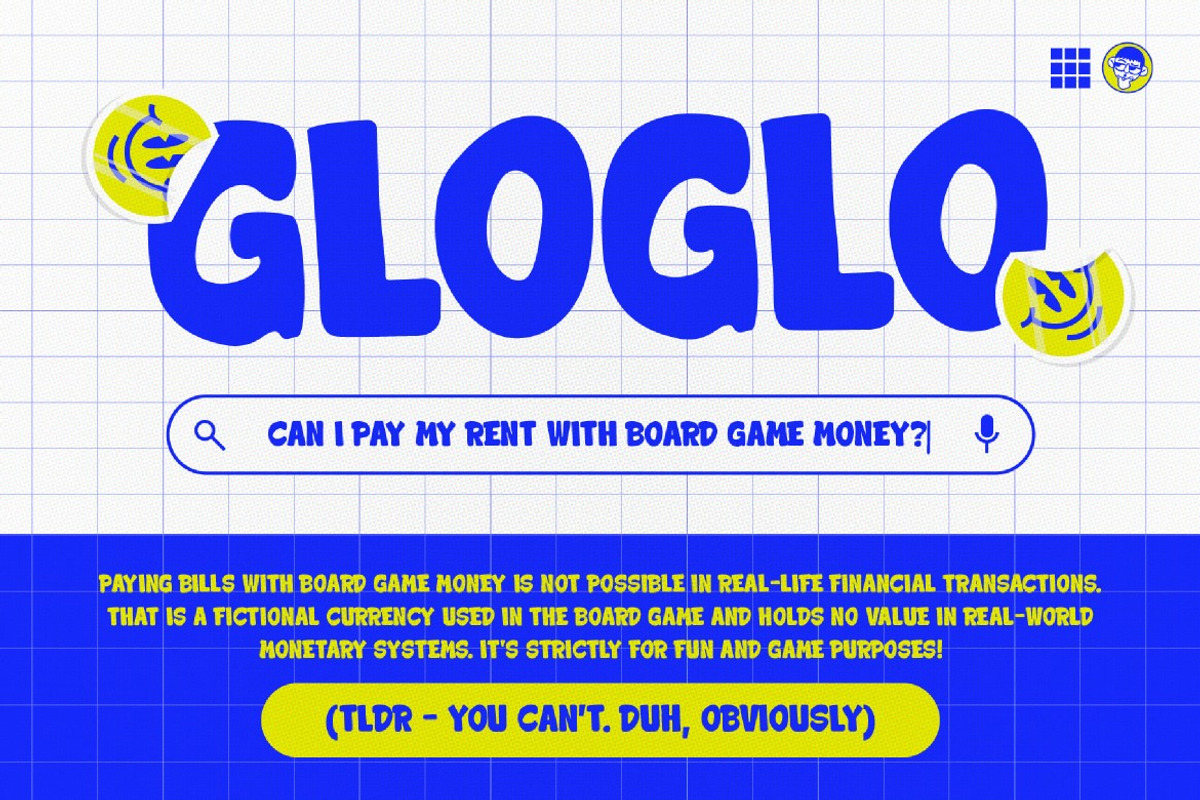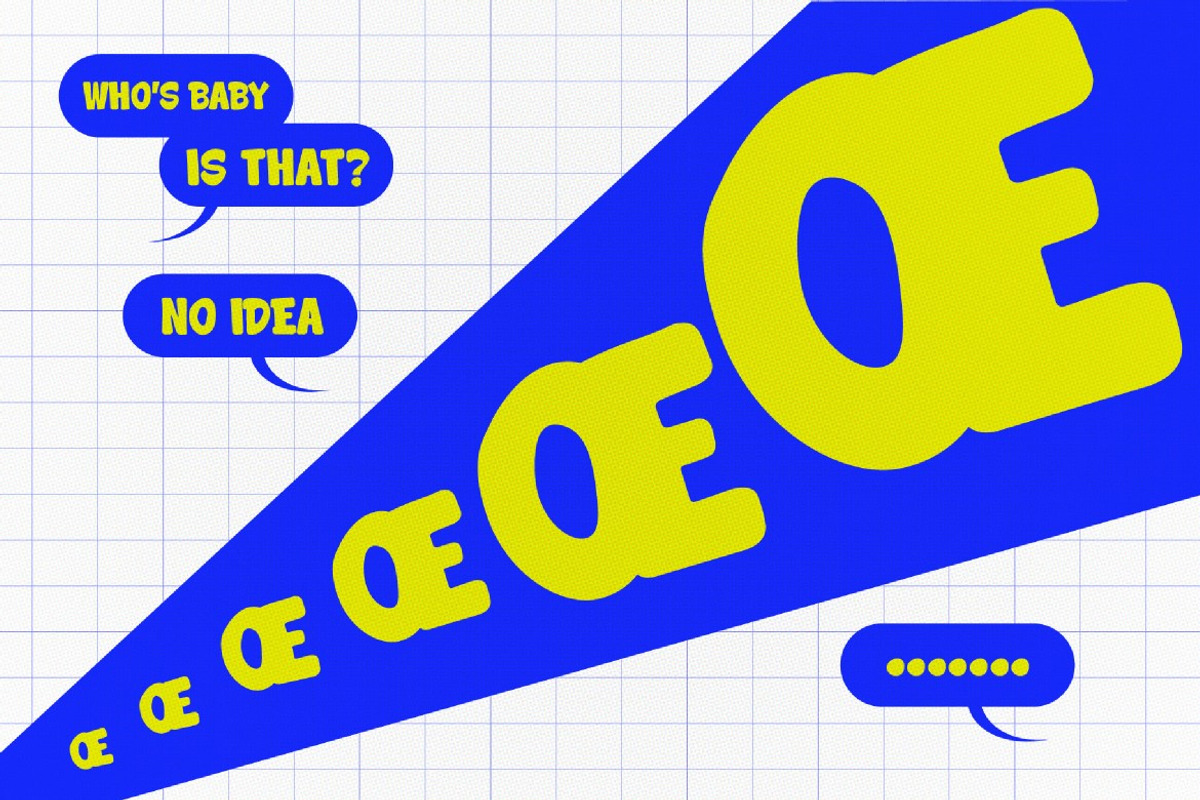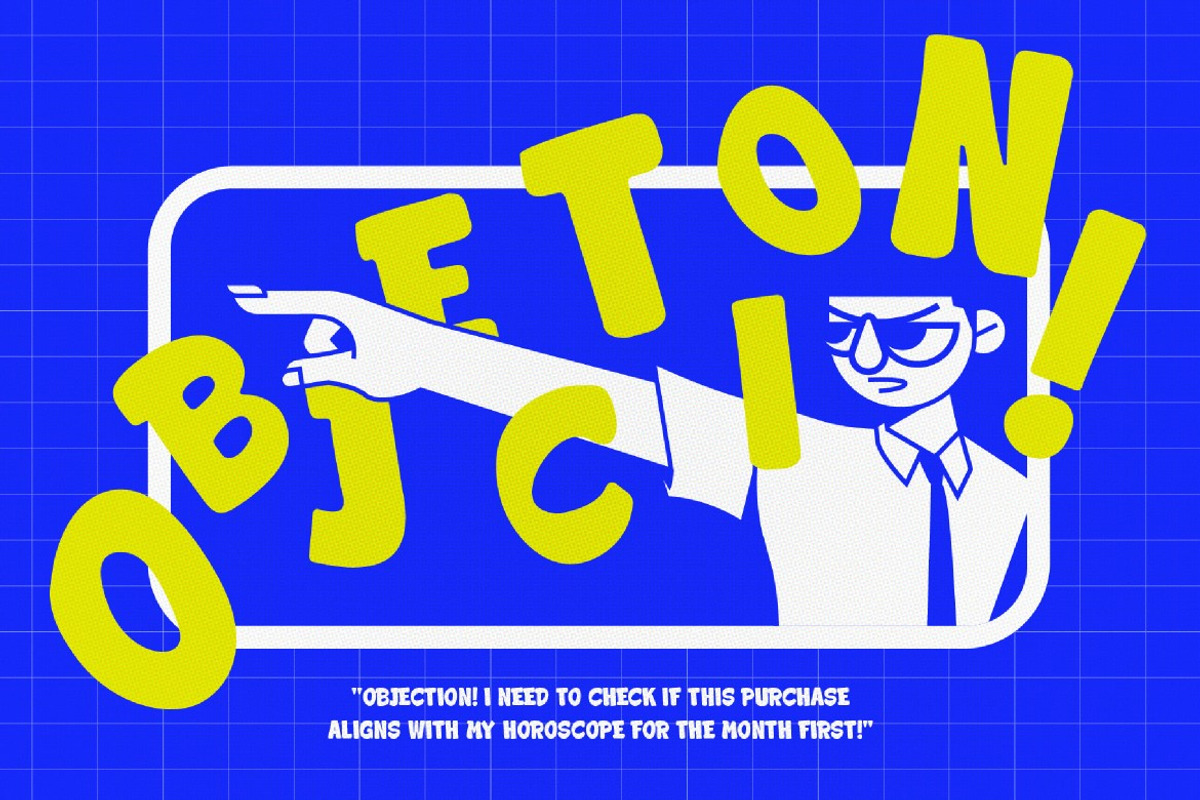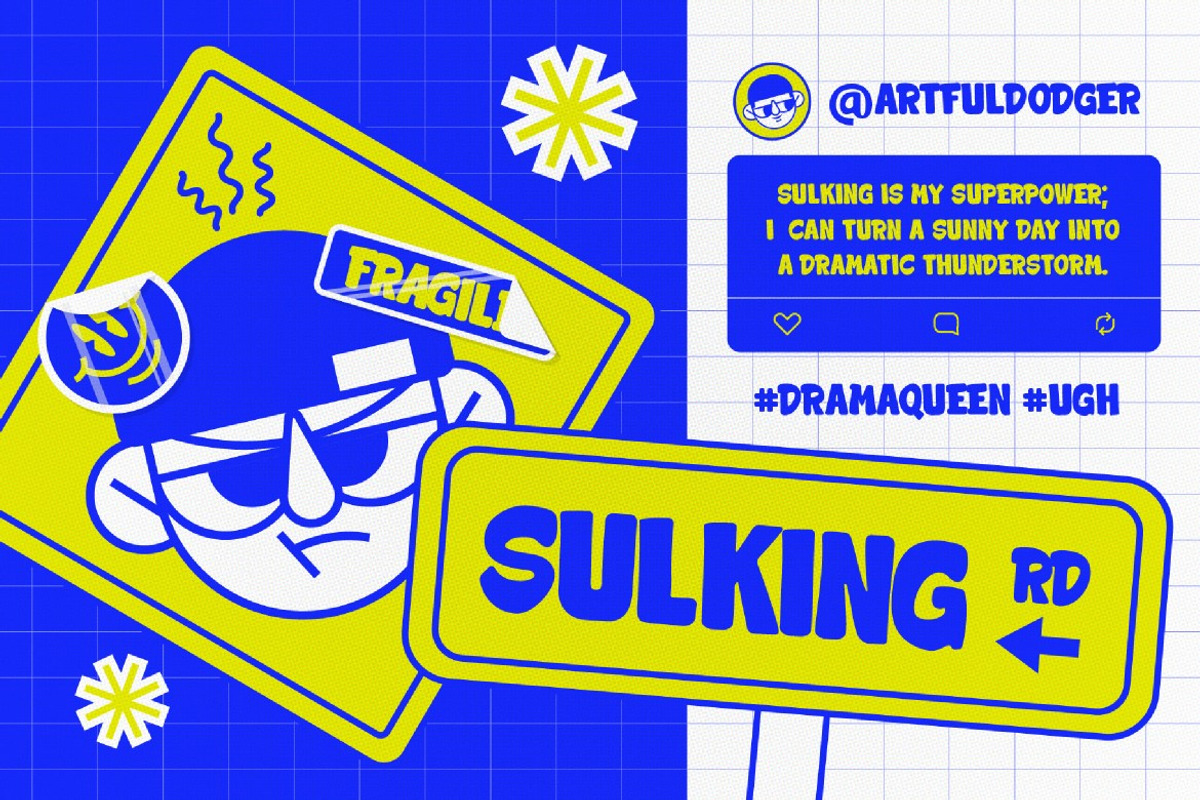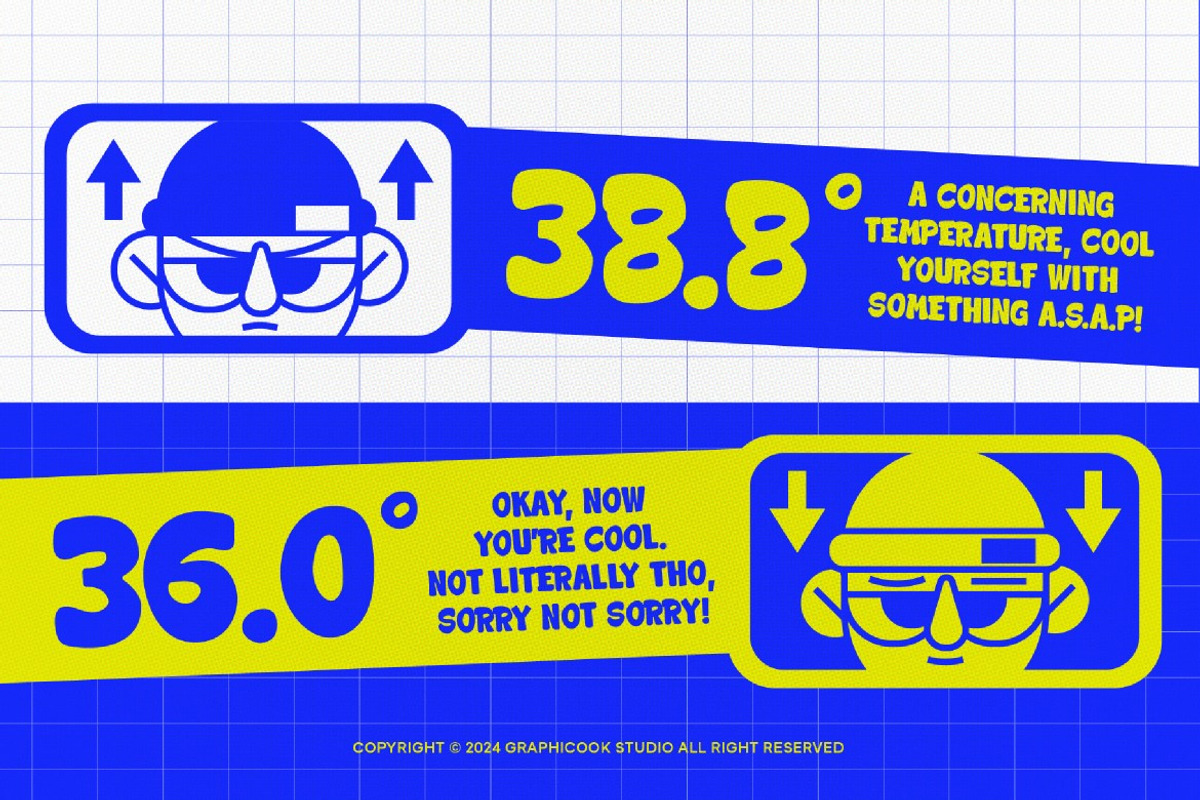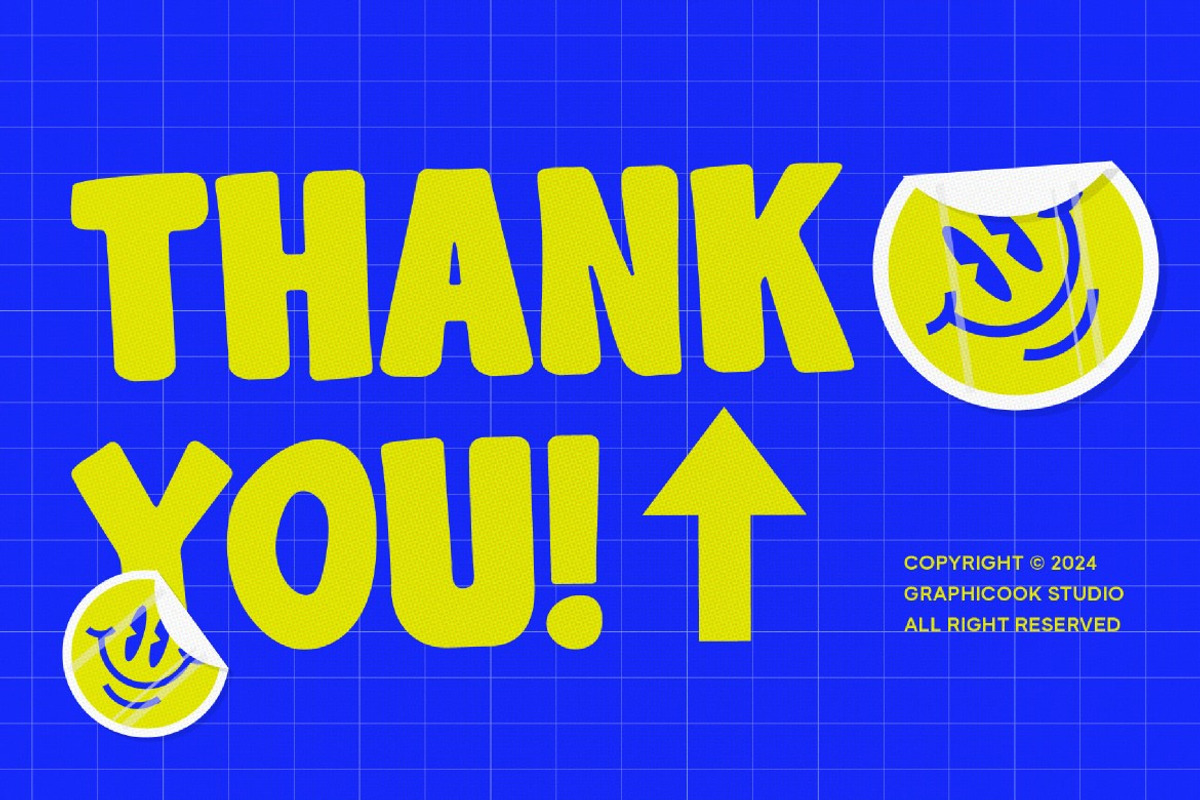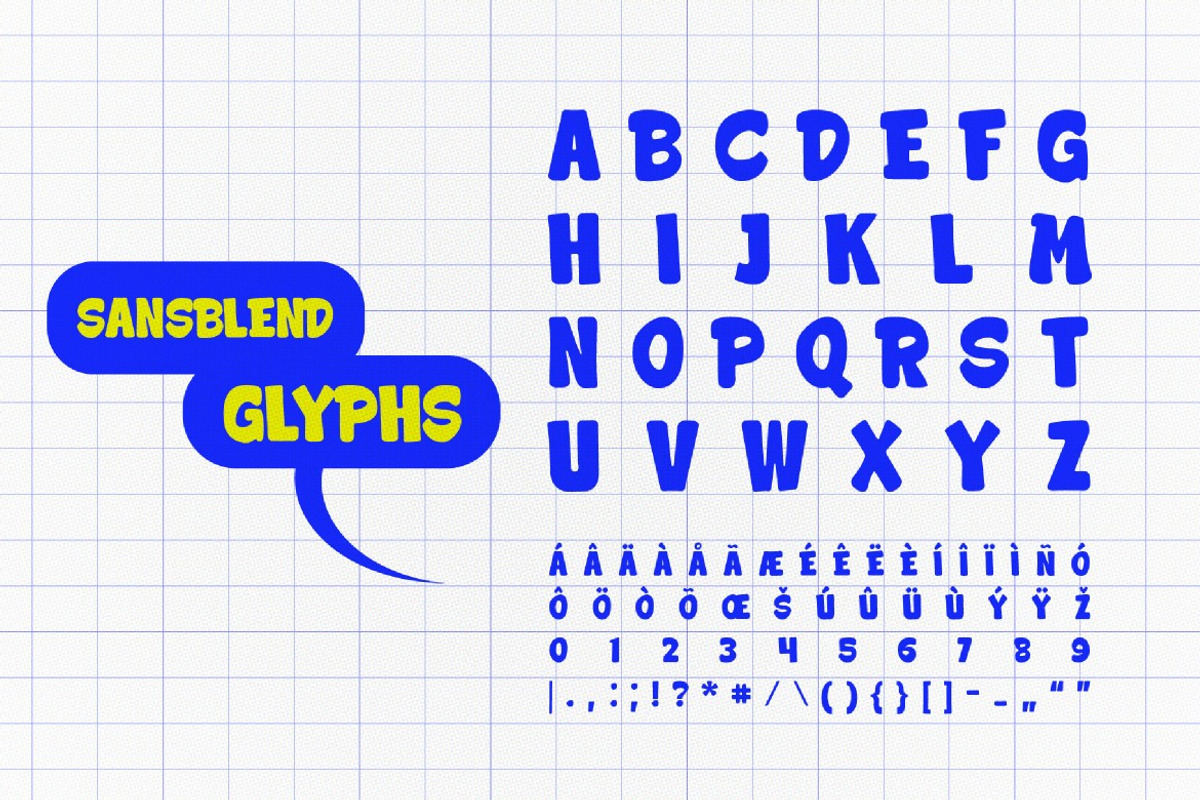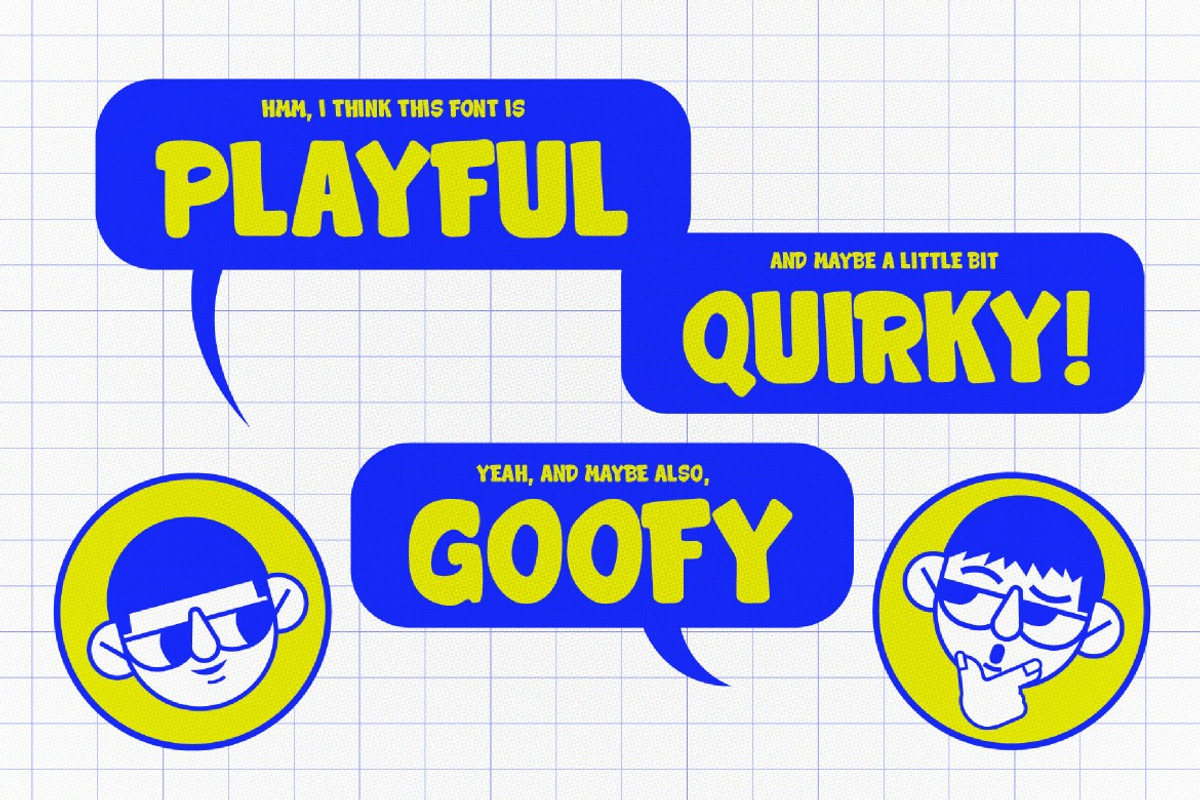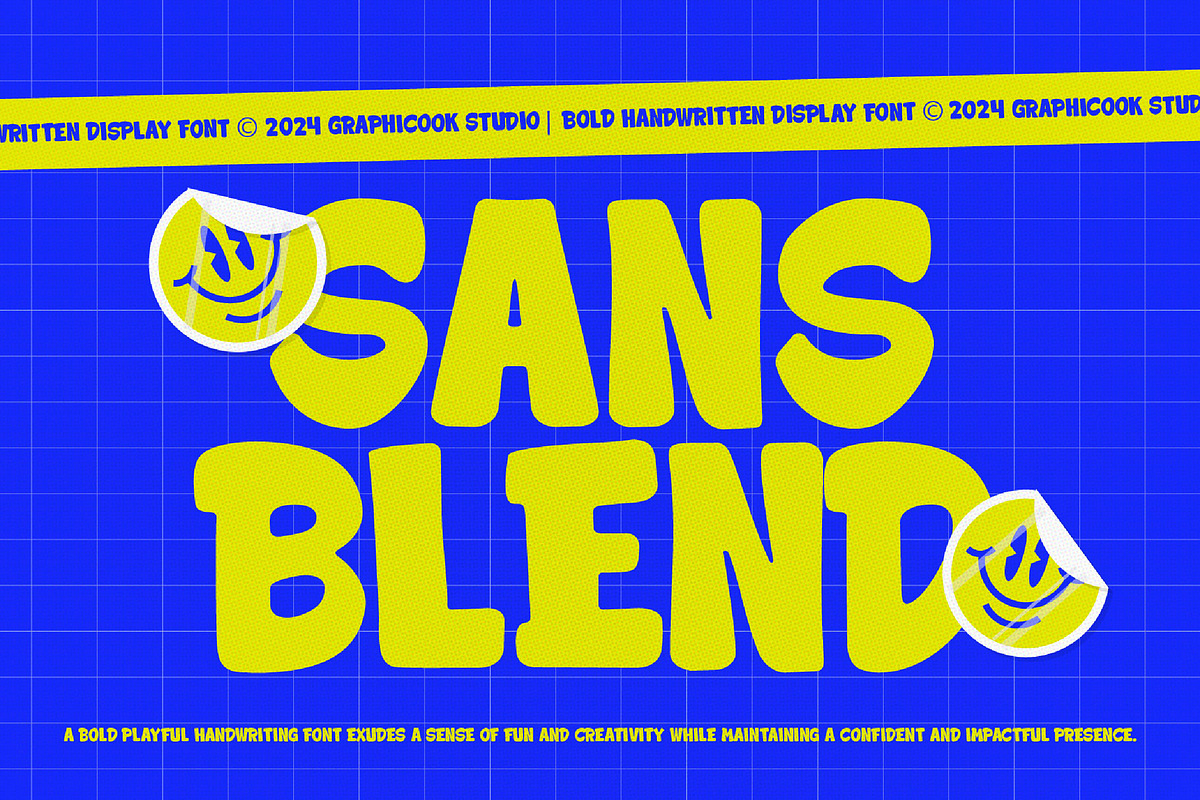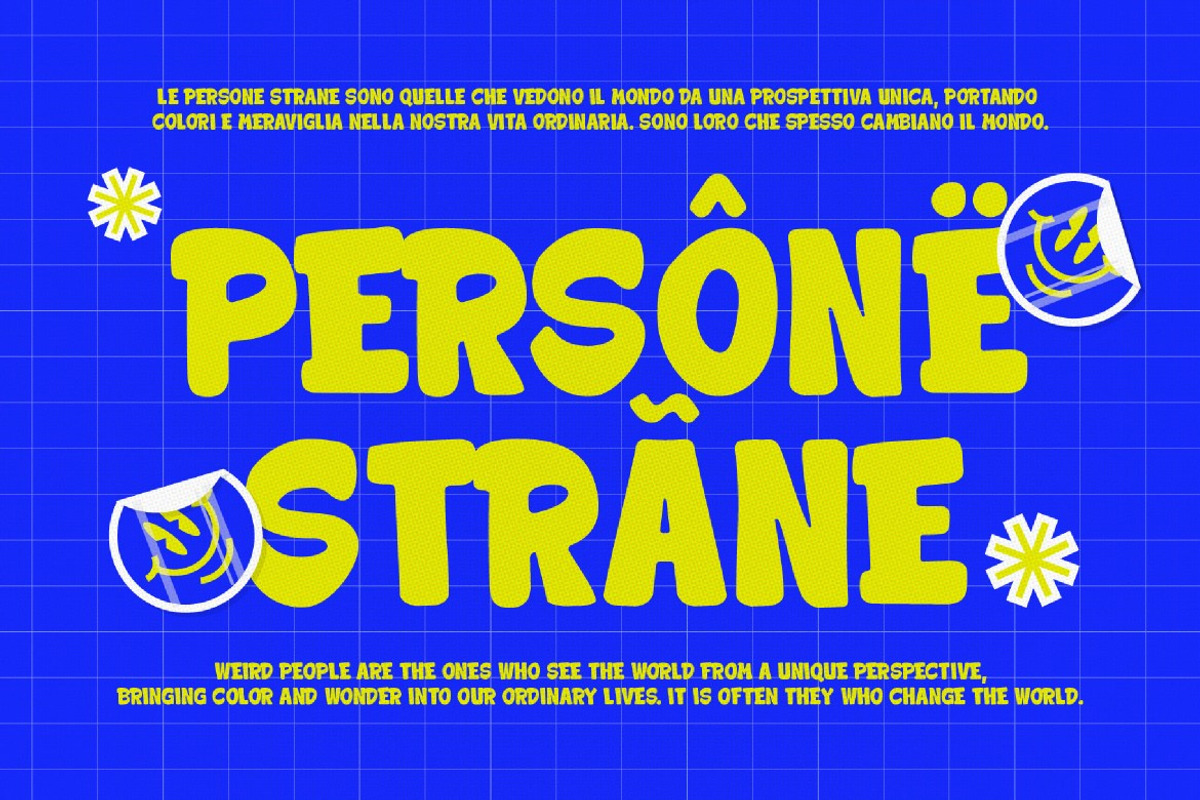
Sansblend
Sansblend is a bold, playful handwriting font radiating fun and creativity. Ideal for quotes, art, titles, and adding a handmade touch.
Sansblend is perfect for headlines, logotypes, magazines, packaging, quotes, movies, games, cover albums, book covers, and flyers, it's a perfect solution for creating eye-catching designs that stand out in any context.